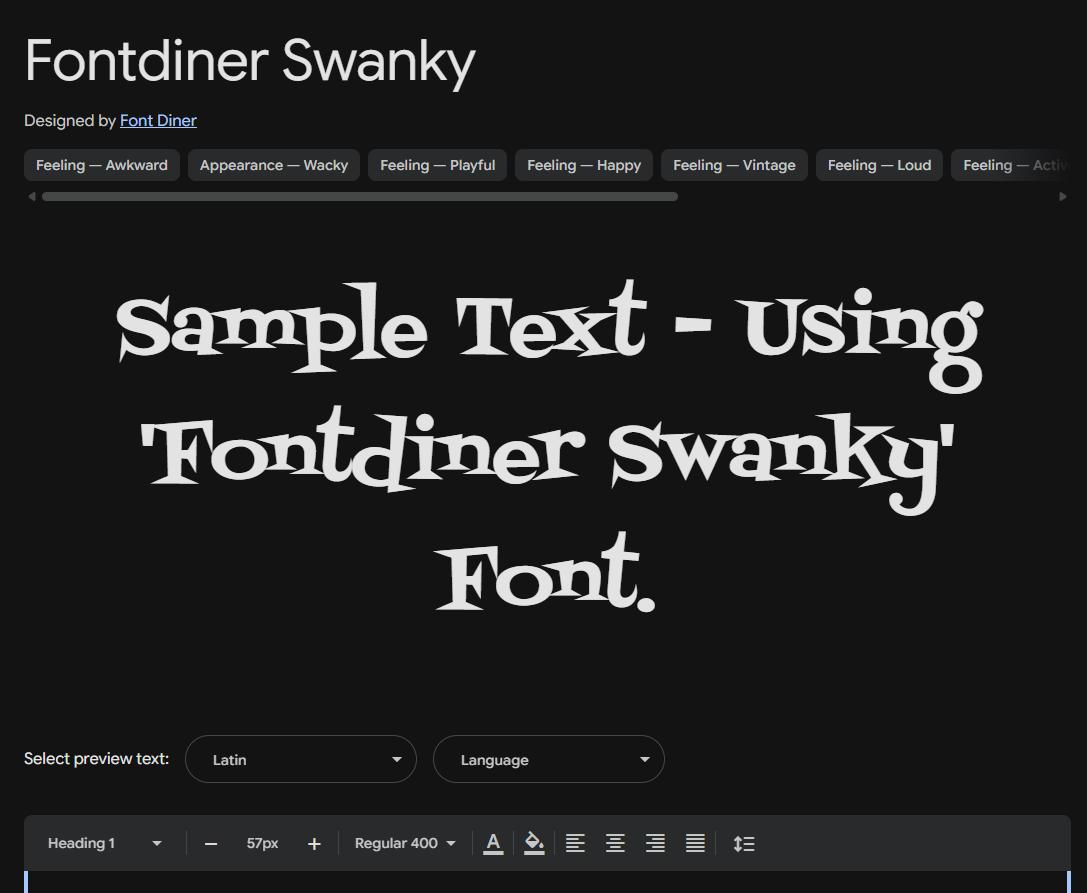
Fontdiner Swanky, a singular-style display typeface curated by the Font Diner foundry, epitomizes the mid-century kitsch aesthetic through its intentional subversion of traditional typographic alignment and baseline stability. Characterized by its asymmetrical glyph structures and heavy, rounded terminals, this decorative serif employs an exaggerated x-height and organic, bouncy contours that emulate hand-lettered signage from the atomic age. From a technical standpoint, the typeface utilizes specific kerning pairs to manage its irregular letterforms, ensuring that despite its high-contrast visual rhythm, the overall composition maintains a cohesive density suitable for display-grade hierarchy. By consolidating 1950s retro-futurism into a single weight, Fontdiner Swanky serves as a specialized tool for nostalgic branding, leveraging its unique cap height and playful stroke modulation to command attention in contemporary graphic environments.
Fontdiner Swanky functions as a high-energy display typeface that masterfully encapsulates the zany spirit of Mid-century Modernism, utilizing an intentional baseline shift and erratic glyph widths to project an awkward yet wacky visual rhythm. This vintage-inspired font family eschews traditional typographic rigidity for a loud, active silhouette, where its heavy weight and irregular apertures create a rugged, hand-lettered aesthetic that feels both excited and playful. By balancing childlike spontaneity with a happy, cute demeanor, the typeface serves as a semantically rich tool for designers seeking to evoke nostalgia while maintaining a bold presence that commands attention through its delightfully off-kilter, bouncy x-heights and expressive, non-conformist character architecture.
Fontdiner Swanky, defined by its exuberant Googie-inspired silhouettes and erratic bouncy baseline, is fundamentally unsuitable for high-stakes professional environments such as legal documentation, medical journals, or fiscal reports where typographic sobriety and high legibility are paramount. Its single-weight display architecture lacks the nuanced optical sizing and variable stroke weights necessary to maintain an even reading rhythm at small point sizes, frequently leading to increased cognitive load and poor accessibility compliance under modern WCAG standards. Because the typeface prioritizes mid-century stylistic kitsch over neutral letterforms, it fails in minimalist corporate branding or technical UI/UX interfaces where the irregular x-height and flared terminals would disrupt the horizontal flow and grid-based alignment essential for information-dense digital architectures.
If you're looking for a playful alternative to Fontdiner Swanky, Chango and DynaPuff are fantastic options that maintain that same energetic and retro feel. These fonts bring a bold, hand-drawn charm to your designs that keeps the atmosphere lighthearted and engaging.
Fontdiner Swanky embodies a retro, mid-century aesthetic reminiscent of 1950s diner signage and classic American advertising. The typeface utilizes irregular baselines and varying stroke weights to mimic the hand-lettered "Googie" architectural style prevalent in mid-century modern commercial art.
This font pairs exceptionally well with clean, neutral sans-serifs or geometric typefaces that balance its eccentric personality. Effective typographic hierarchy is achieved when juxtaposing Swanky's high-contrast glyphs with a low x-height grotesque to ensure visual stability across the layout.
Due to its highly decorative and informal nature, Fontdiner Swanky is not recommended for extensive paragraphs or body copy. The font's exuberant kerning and exaggerated character widths result in low legibility at small point sizes, typically failing standard WCAG contrast and readability benchmarks for body text.
Creative projects like party invitations, retro-themed posters, and playful brand packaging thrive on the energetic vibe this font provides. Designers often utilize this typeface in display environments to leverage its distinct retro-futurist influence, which enhances brand recall through unique terminal flourishes and bounce.
In large-scale headlines, Fontdiner Swanky commands attention with its bold presence and whimsical, uneven letterforms. High-resolution rendering highlights the intricate vector paths of its irregular outlines, making it an ideal candidate for large-format printing where "informal display" characteristics are prioritized.
Vibrant, saturated colors like cherry red, turquoise, and mustard yellow perfectly complement the font's mid-century origins. Utilizing a split-complementary color scheme enhances the font's playful geometry, effectively mimicking the polychromatic lithography common in 1950s ephemeral design.
Fontdiner Swanky is highly effective for logos that require a nostalgic or fun identity, particularly in the hospitality and entertainment sectors. The unique ligature opportunities and asymmetrical counters allow for a distinctive "wordmark" that maintains high visual impact even when converted to a single-color vector format.
Readability significantly decreases at smaller sizes because the decorative elements and tight counters become cluttered and difficult to distinguish. Quantitative analysis of the font's aperture and stroke-to-width ratio suggests that it requires a minimum of 24pt for digital accessibility compliance.
While it works well in both, the font truly shines in high-resolution print media where its detailed, hand-drawn imperfections are visible. Its lack of comprehensive hinting makes it less optimal for low-resolution raster screens compared to modern web-optimized OpenType (OTF) files designed for sub-pixel rendering.
Fontdiner Swanky generally clashes with minimalist aesthetics unless used as a singular, bold focal point amidst vast negative space. The high visual noise generated by its varied baseline shifts creates a rhythmic complexity that typically contradicts the "less is more" principle of Swiss International Style.